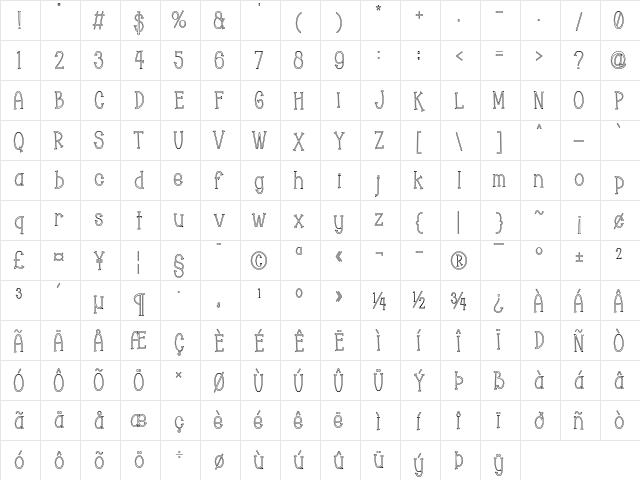
Chopyor Hollow Regular
| Foundry | Sons Of Baidlowi |
| Designer | Azmilbahar |
Design Context for Chopyor Hollow Typeface
Chopyor Hollow offers clean, dependable letterforms without strong stylistic allegiance, making it a practical choice for designers who need flexibility.